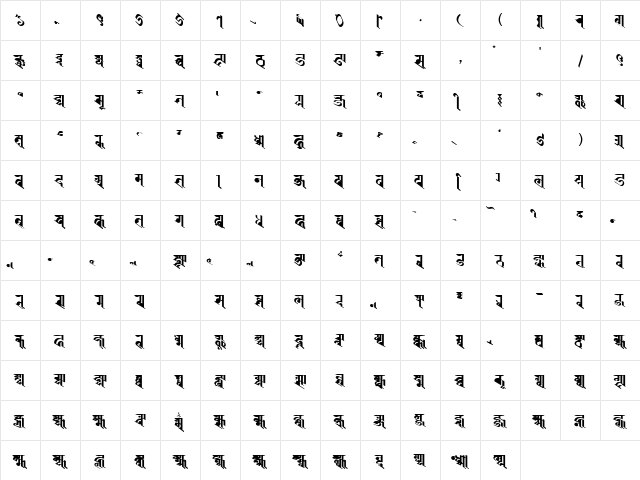
BISHOWSON2 Ranjana Lipi ISBN9993355933
Design Context for BISHOWSON2 Ranjana Lipi Typeface
BISHOWSON2 Ranjana Lipi takes a measured approach to typography — its balanced proportions and neutral character make it a reliable workhorse for both digital and print work.